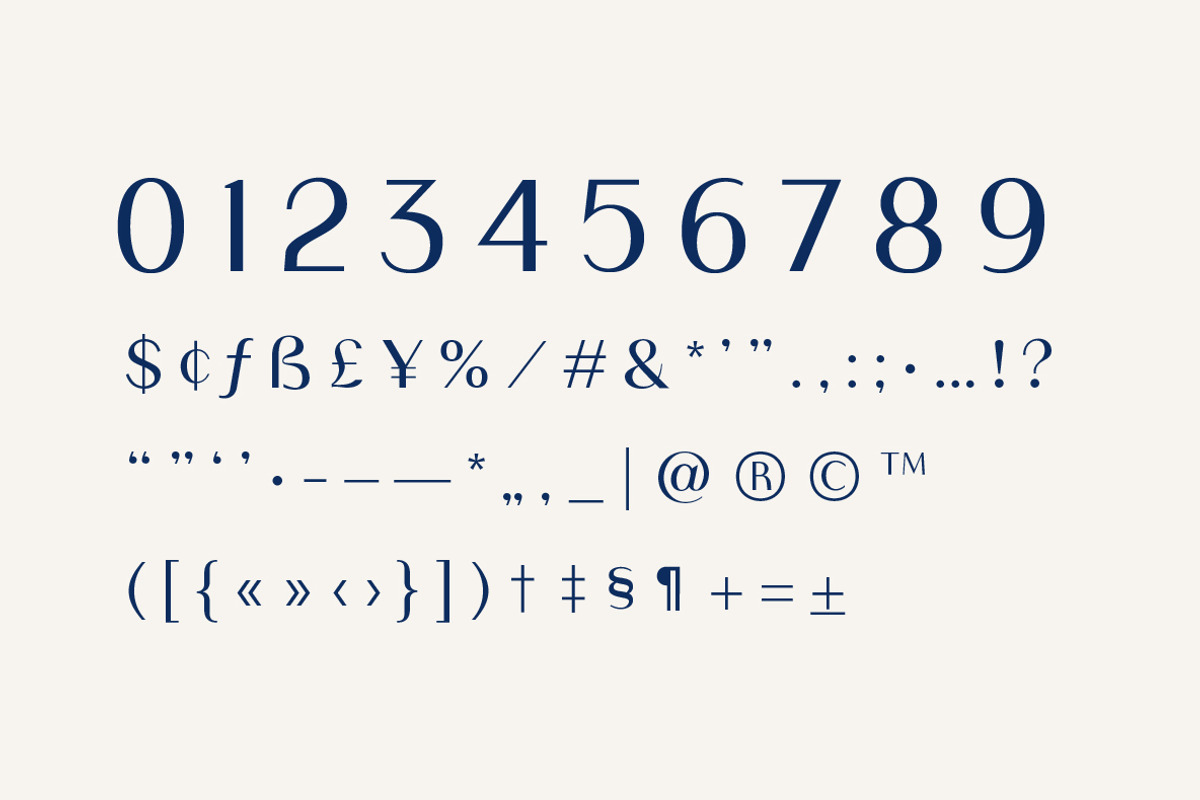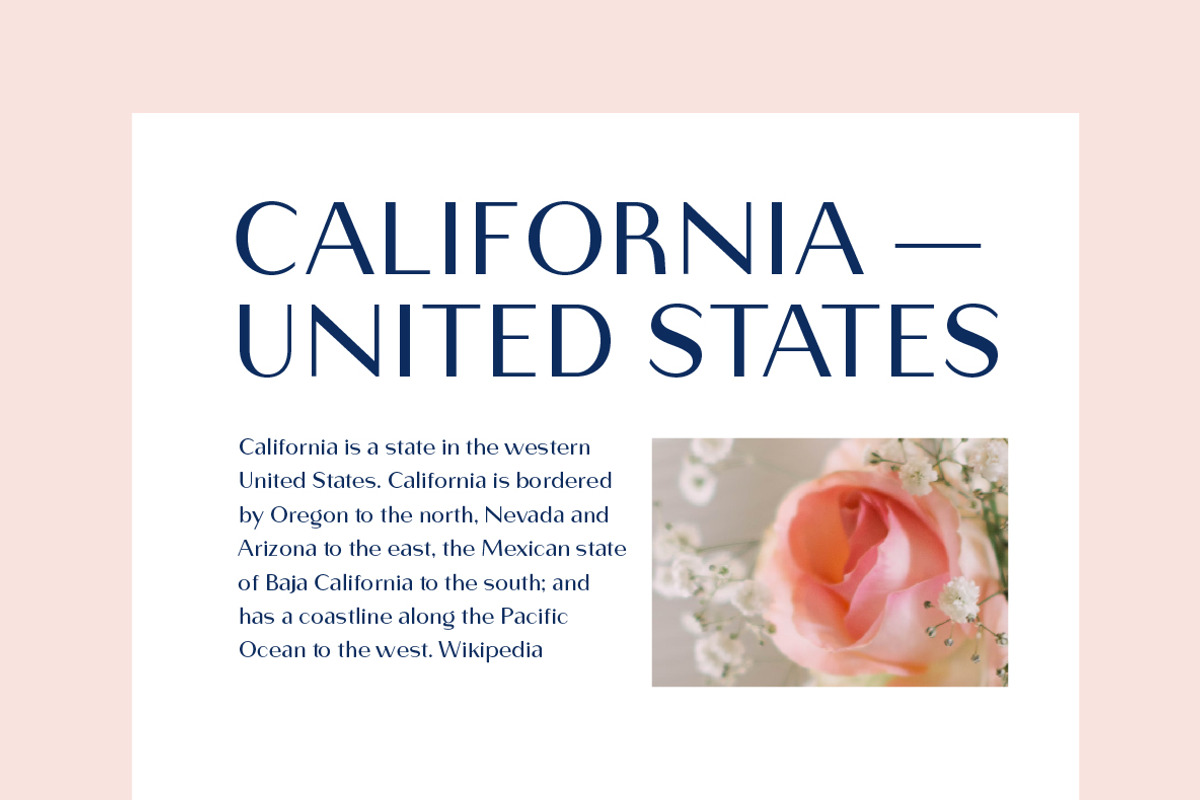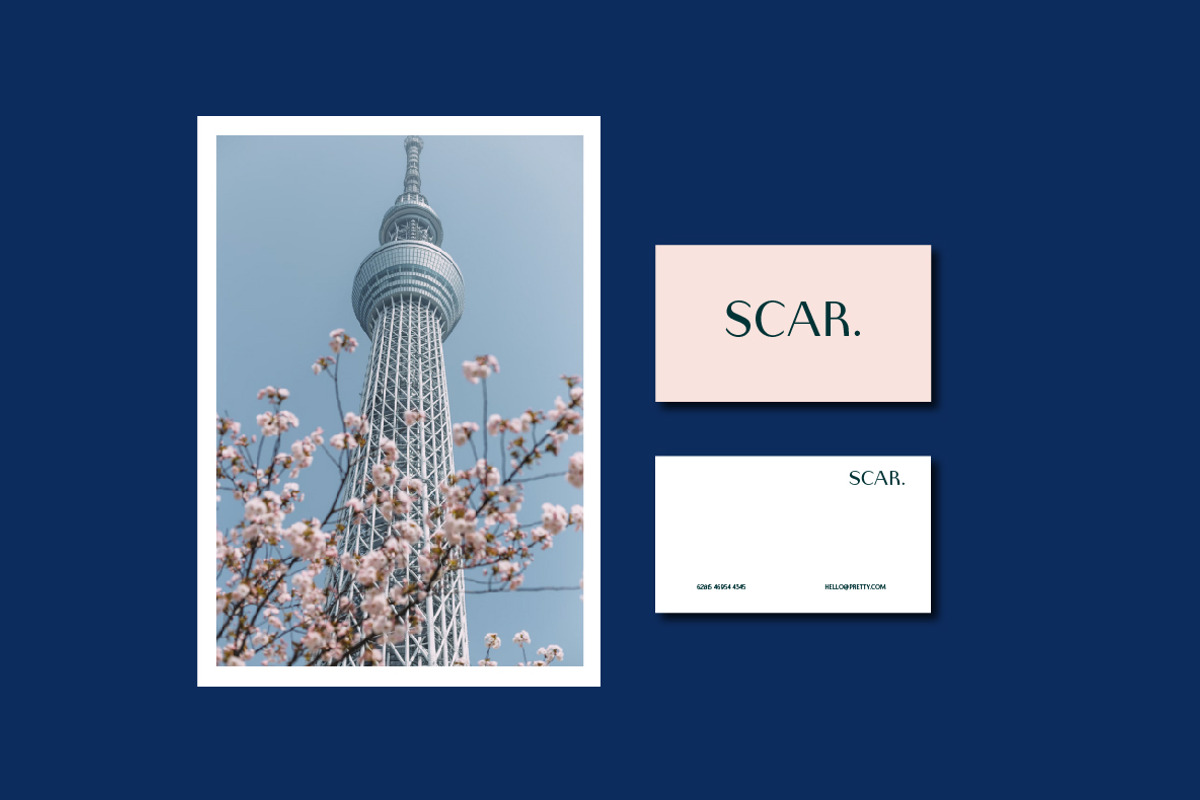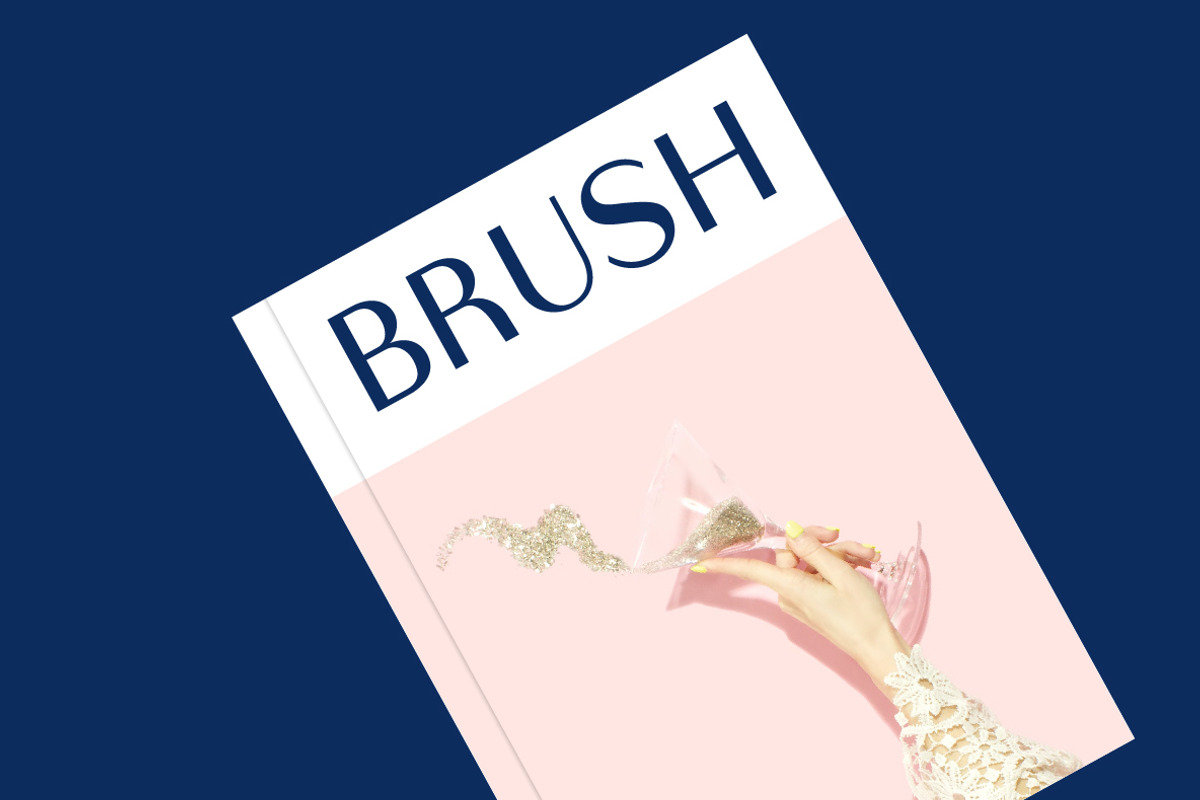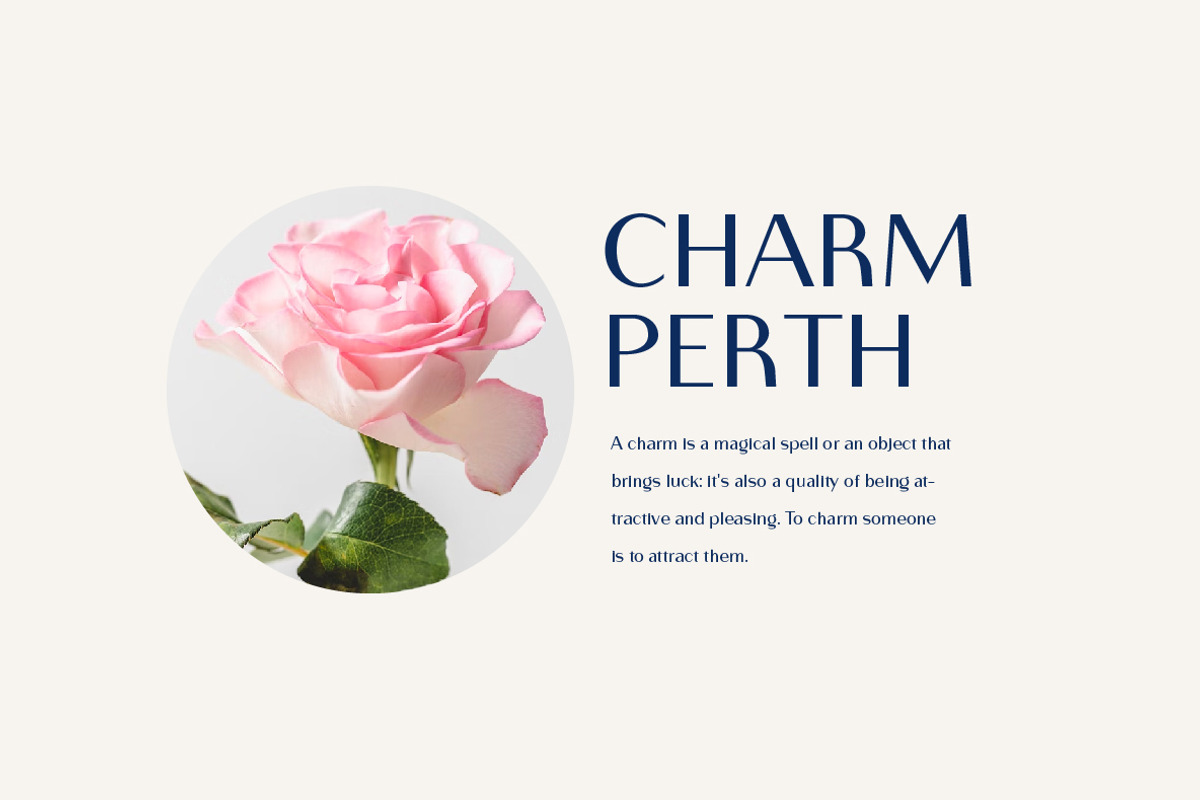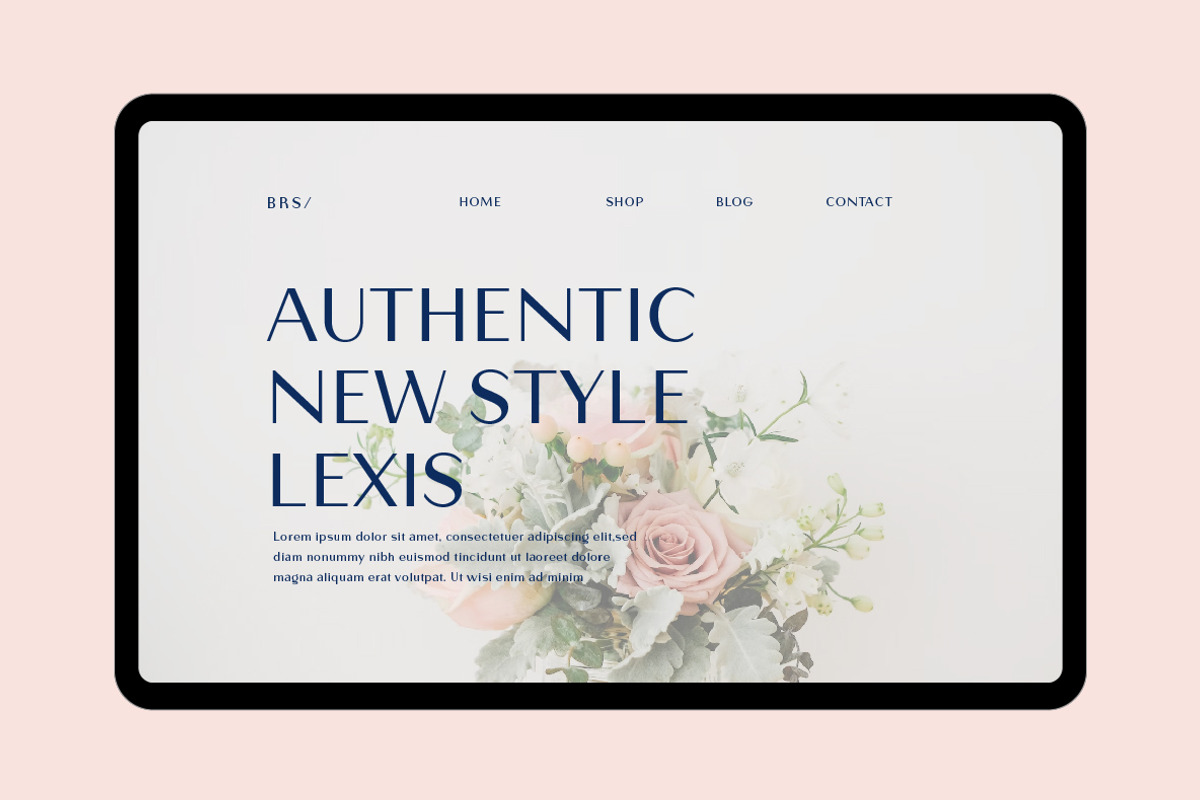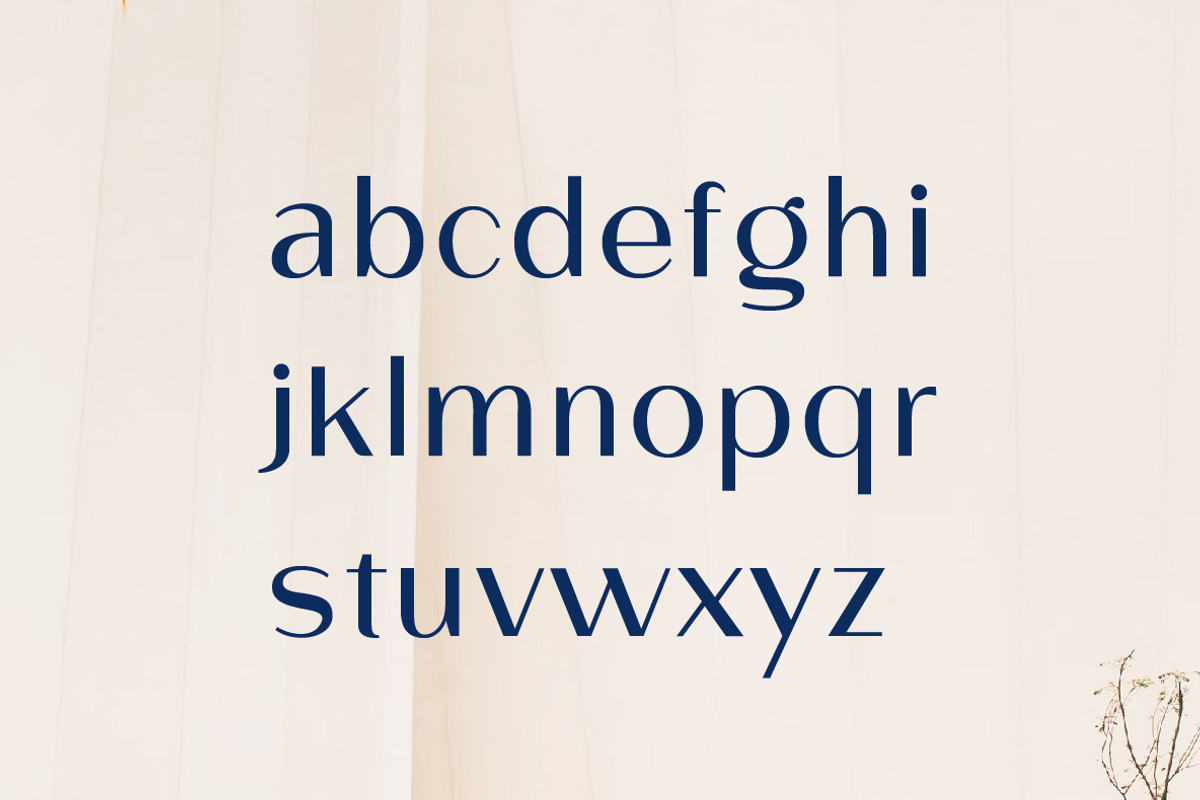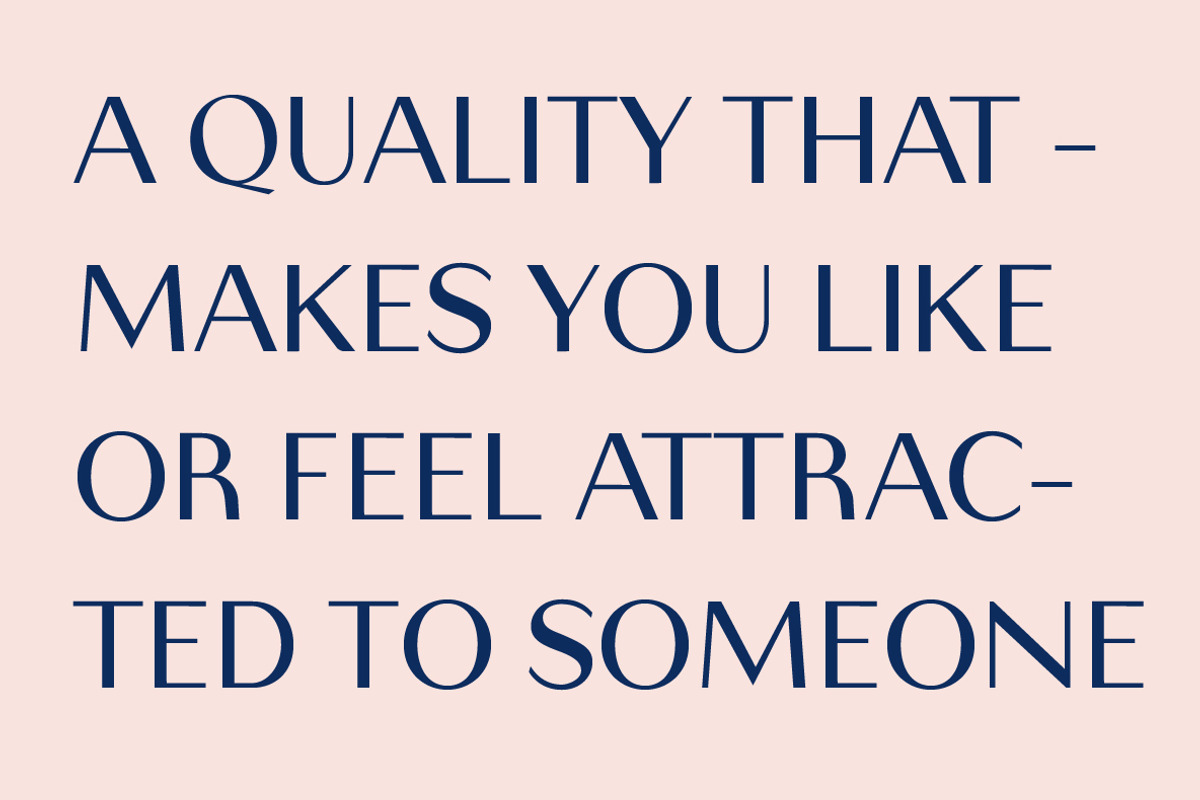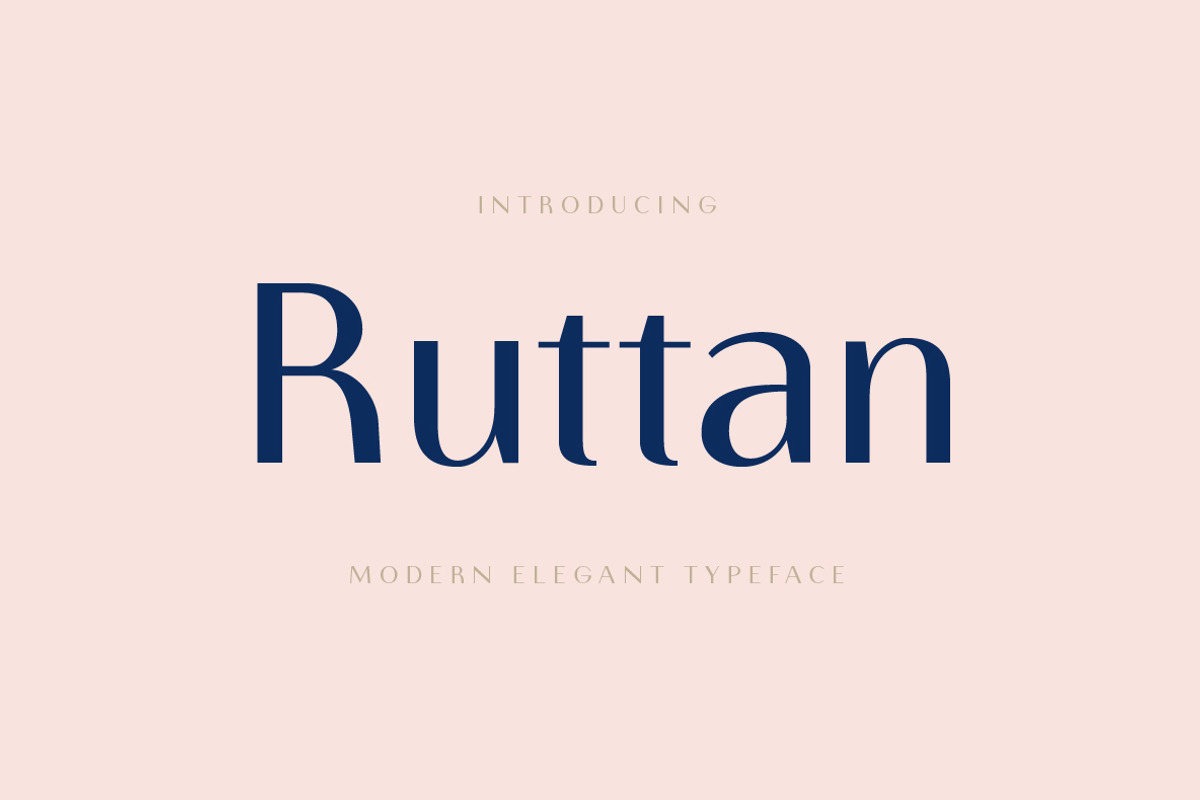
Ruttan Elegant Fonts
Ruttan Elegant Fonts is a modern sans serif font with tall, thin shapes Perfect for high fashion branding, cinematic videos, social media titles and other cutting-edge creations! What sets this typeface apart from the others? It's easy to read yet sophisticated.